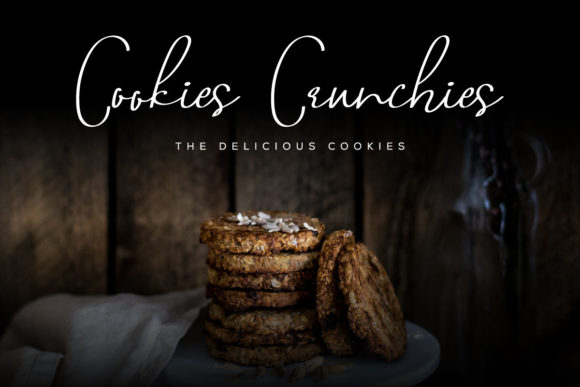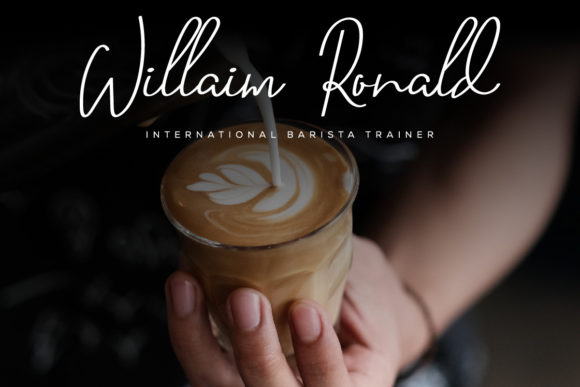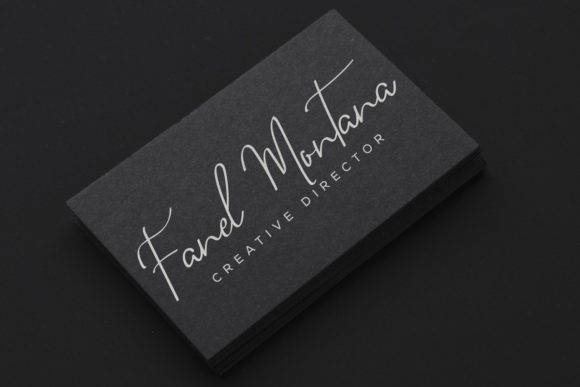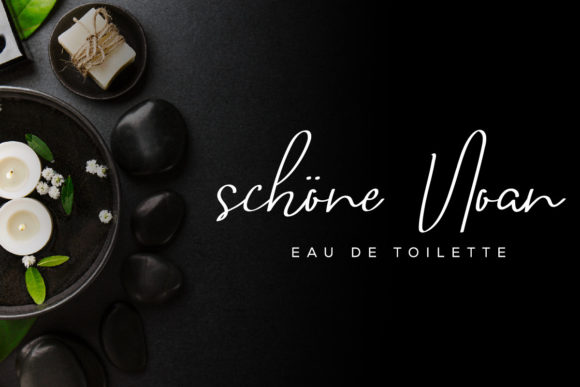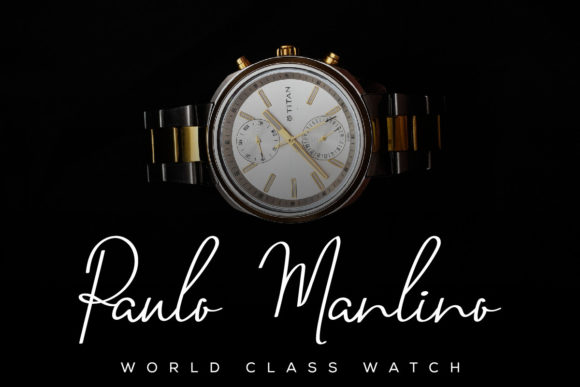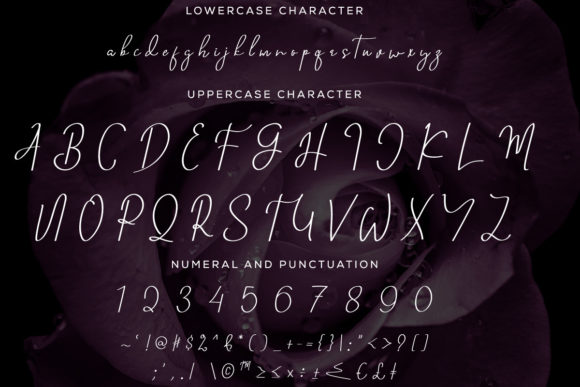
Fingertipz Font: The Sweet and Friendly Handwritten Font for Your Designs
Are you a designer or crafter looking for a unique and friendly font to add a personal touch to your creations? Look no further than Fingertipz Font! This sweet and friendly handwritten font is perfect for a wide range of designs, from invitations and greeting cards to branding and packaging. In this article, we’ll explore the features and benefits of Fingertipz Font and why it’s a must-have for any creative project.
The Unique Style of Fingertipz Font
Fingertipz Font boasts a natural and unique style that sets it apart from other fonts. Its handwritten charm makes it incredibly fitting for designs that require a personal touch. Whether you’re creating a whimsical illustration, a heartfelt letter, or a playful advertisement, Fingertipz Font is sure to bring a smile to your audience’s faces. The font’s distinctive character is perfect for adding a touch of warmth and personality to your designs.
One of the standout features of Fingertipz Font is its PUA (Private Use Area) encoding. This means that you can access all of the font’s glyphs and swashes with ease, giving you complete creative control over your designs. With PUA encoding, you can effortlessly navigate the font’s extensive character set, including alternates, ligatures, and decorative elements. This feature makes it simple to customize your text and add unique flourishes to your designs.
Versatility for a Wide Range of Designs
Fingertipz Font is incredibly versatile, making it suitable for a wide range of designs and projects. Here are just a few examples of how you can use this font:
- Invitations and Greeting Cards: Add a personal touch to your invitations and greeting cards with Fingertipz Font’s charming handwritten style.
- Branding and Packaging: Use Fingertipz Font to create unique and eye-catching branding and packaging for your products.
- Illustrations and Art: Incorporate Fingertipz Font into your illustrations and artwork for a touch of whimsy and personality.
- Signage and Displays: Use Fingertipz Font to create eye-catching signage and displays for events, promotions, or advertising.
Why Choose Fingertipz Font?
So why should you choose Fingertipz Font for your designs? Here are just a few reasons:
- Unique and Eye-Catching: Fingertipz Font’s distinctive style is sure to grab attention and leave a lasting impression.
- Easy to Use: With PUA encoding, accessing the font’s glyphs and swashes is a breeze.
- Versatile: Fingertipz Font is suitable for a wide range of designs and projects.
- High-Quality: Fingertipz Font is a high-quality font designed to deliver crisp and clear results.